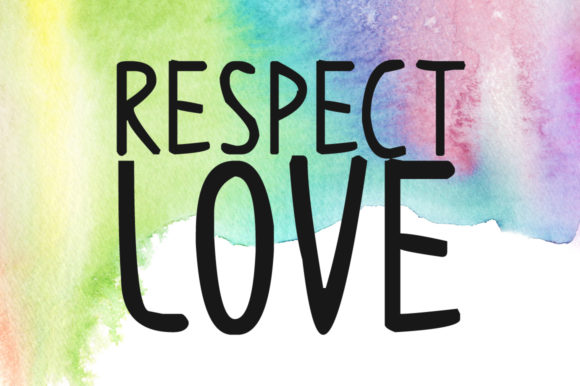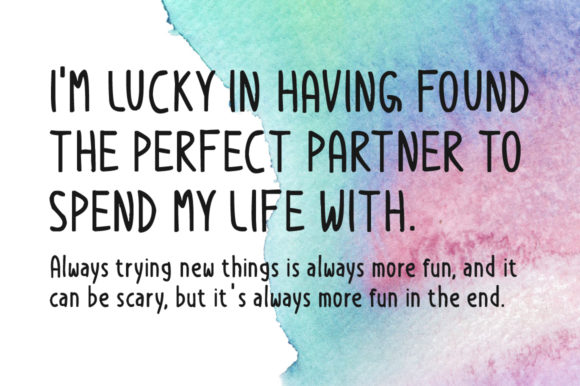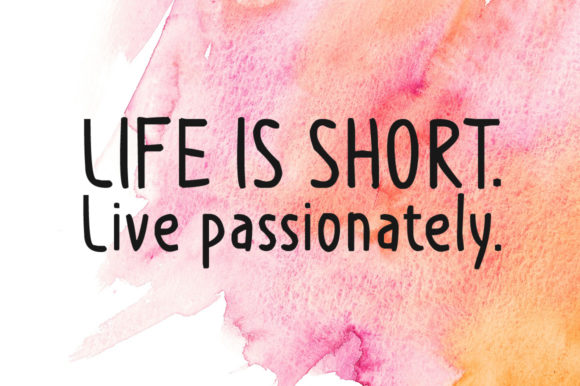
Introducing Have Patience Font: The Perfect Handwritten Font for Designers and Crafters
In the world of design, fonts play a crucial role in conveying the message and aesthetic of a brand or project. For designers and crafters looking for a unique and versatile font, Have Patience Font is an exciting new addition to the market. This brand new handwritten font is perfectly suited for a wide range of applications, from stationery and logos to t-shirts, papers, and print designs.
What is Have Patience Font?
Have Patience Font is a carefully crafted handwritten font that exudes a sense of elegance and sophistication. Its unique character and charm make it an ideal choice for designers and crafters looking to add a personal touch to their projects. The font’s versatility allows it to be used in various contexts, including:
- Stationery: Create beautiful and eye-catching stationery, such as greeting cards, invitations, and letters.
- Logos: Design stunning logos for businesses, events, or personal brands.
- T-shirts and apparel: Add a touch of personality to t-shirts, hoodies, and other clothing items.
- Papers and print designs: Enhance papers, brochures, and print designs with a unique and stylish font.
- Website headers: Create visually appealing website headers that grab attention.
- Photo frames and flyers: Add a creative touch to photo frames and flyers.
- Music covers and posters: Design eye-catching music covers and posters.
- Image sliders and more: Use Have Patience Font to create stunning image sliders and other design projects.
Why Choose Have Patience Font?
So, what sets Have Patience Font apart from other fonts? Here are a few reasons why designers and crafters will love this font:
- Unique and handmade**: Have Patience Font is a carefully crafted handwritten font that offers a unique and personal touch.
- Versatile**: The font can be used in a wide range of applications, from digital designs to print materials.
- Elegant and sophisticated**: The font’s elegant and sophisticated style makes it perfect for designs that require a touch of refinement.
- Easy to read**: Despite its unique character, Have Patience Font is easy to read and understand, making it perfect for body text and headings.
Tips for Using Have Patience Font
To get the most out of Have Patience Font, here are a few tips:
- Experiment with font sizes and colors**: Play around with different font sizes and colors to create visual interest and hierarchy.
- Pair with other fonts**: Combine Have Patience Font with other fonts to create a unique and stylish typography.
- Use in combination with images**: Use the font in combination with images to create stunning visual designs.
- Make it bold or italic**: Use the font’s bold or italic variations to add emphasis and create visual interest.
Have Patience Font is an exciting new addition to the world of design fonts. Its unique character, versatility, and elegance make it a perfect choice for designers and crafters looking to add a personal touch to their projects. With its wide range of applications and easy-to-use design, Have Patience Font is sure to become a favorite among designers and crafters. So, take a moment to explore the possibilities of Have Patience Font and discover how it can elevate your designs to the next level.
Whether you’re a seasoned designer or a crafter looking for a unique font, Have Patience Font is definitely worth checking out. So, go ahead, have patience, and get creative with this amazing new font!